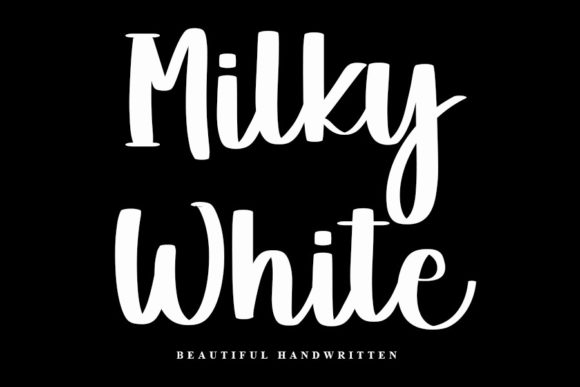
Embark on a typographic adventure with Milky White Font, a creation of Inermedia STUDIO that exudes an aura of fun, beauty, and casual elegance. This script font carries a charm that instantly transforms your designs, injecting them with a touch of modernity and a dash of chic.
Milky White Font's essence lies in its fluidity and whimsical nature, reminiscent of a gentle breeze gracefully dancing across a field of wildflowers. Each letter dances and twirls, creating a visual symphony that captivates the beholder. Its unassuming presence allows your designs to shine, subtly enhancing them without overpowering their inherent beauty.
Unleash your imagination and let Milky White Font guide you through a world of creative possibilities. Whether you're crafting logos, branding materials, or digital designs, Milky White Font serves as your trusty companion, adding a touch of sophistication and elegance to every project.
Embrace the versatility of Milky White Font, a font that effortlessly adapts to a myriad of applications. Its inherent charm shines through in wedding invitations, captivating social media posts, and eye-catching posters. Let Milky White Font be your creative muse, inspiring you to create designs that leave a lasting impression.
Every stroke, every curve, and every twist of Milky White Font tells a story, inviting your audience to embark on a journey of visual delight. Its timeless appeal ensures that your designs stand the test of time, remaining relevant and captivating for years to come.